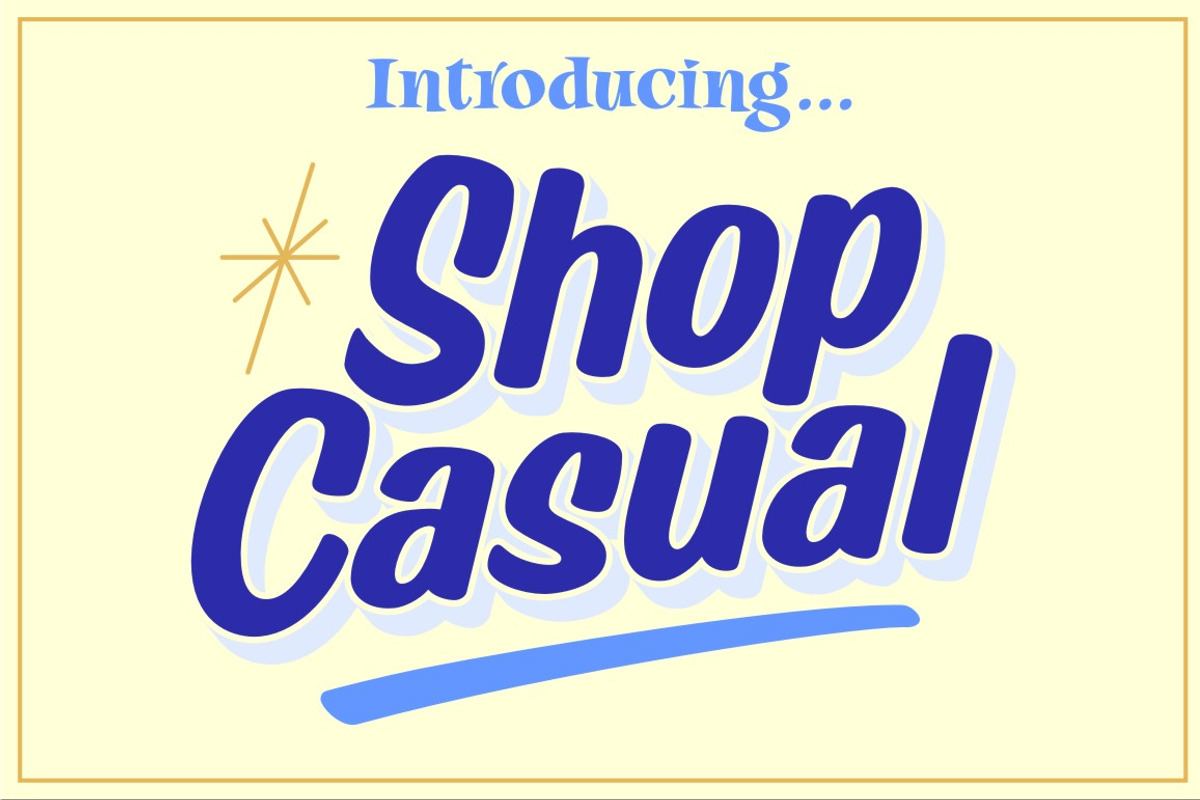
You must purchase this font for commercial use. However, you can download Shop Casual Font Free Download for testing purposes. Shop Casual is a stylish, friendly, and casual script font that gives off a relaxed, hand-lettered feel. Its clean lines and casual charm make it ideal for branding, signage, logos, product packaging, social media graphics, and informal invitations.
The font is easy to read while maintaining a laid-back and welcoming vibe, making it perfect for designs that want to feel both approachable and professional. Whether you’re designing for a boutique, café, or casual event, Shop Casual Font Free Download adds a personalized, charming touch to your projects.